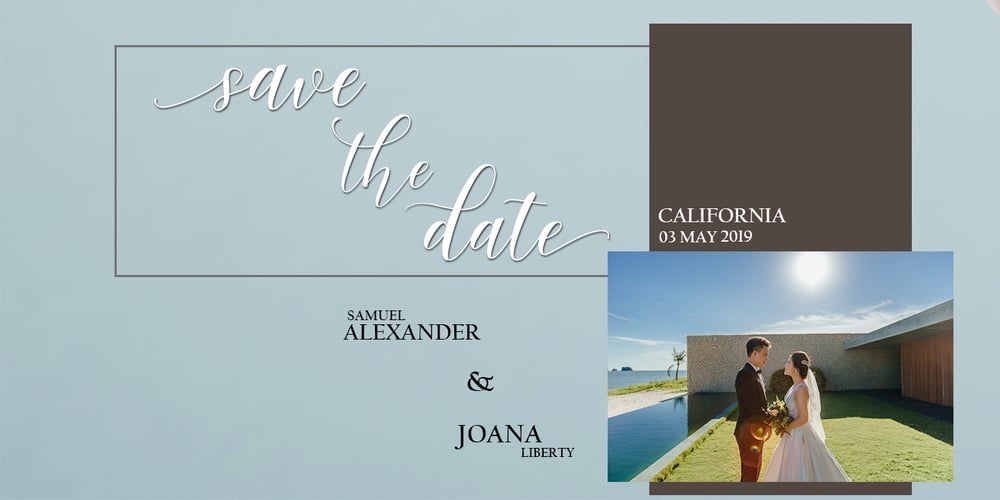
Lovely Thing Font Family was designed by Arif Gunawan and published by Natural Ink. Lovely Thing contains 1 styles and family package options. Lovely Thing is modern calligraphy script. This font is casual and pretty with swashes. It can used for various purposes, such as logos, product packaging, wedding invitations, branding, headlines, signage, labels, signature, book covers, posters, quotes and more. Lovely Thing features OpenType stylistic alternates, ligatures and International support for most Western Languages is included. To enable the OpenType Stylistic alternates, you need a program that supports OpenType features such as Adobe Illustrator CS, Adobe Indesign & CorelDraw X6-X7, Microsoft Word 2010 or later versions. How to access all alternative characters using Adobe Illustrator: https://www.youtube.com/watch?v=XzwjMkbB-wQ Lovely Thing is coded with PUA Unicode, which allows full access to all the extra characters without having special designing software. Mac users can use Font Book , and Windows users can use Character Map to view and copy any of the extra characters to paste into your favourite text editor/app. How to access all alternative characters, using Windows Character Map with Photoshop: https://www.youtube.com/watch?v=Go9vacoYmBw If you need help or have any questions, please let me know. I’m happy to help 🙂 Thanks & Happy Designing!